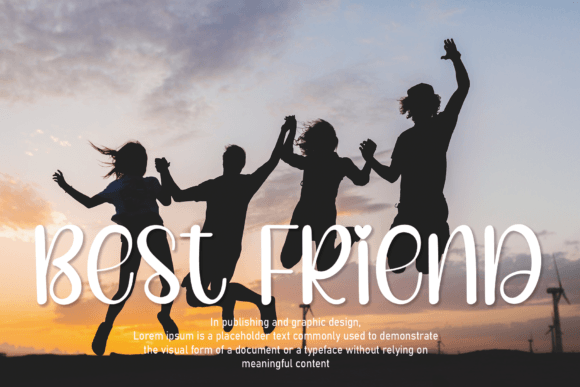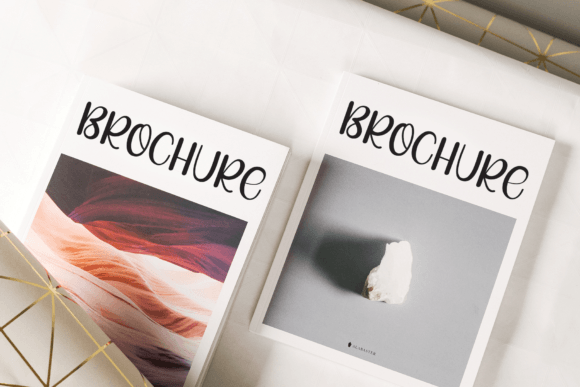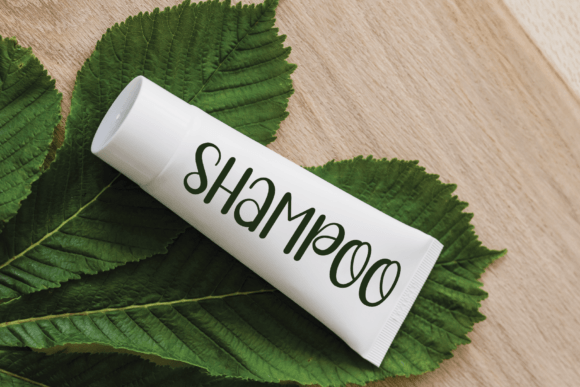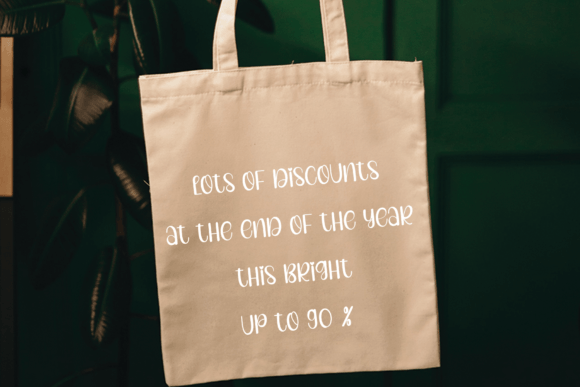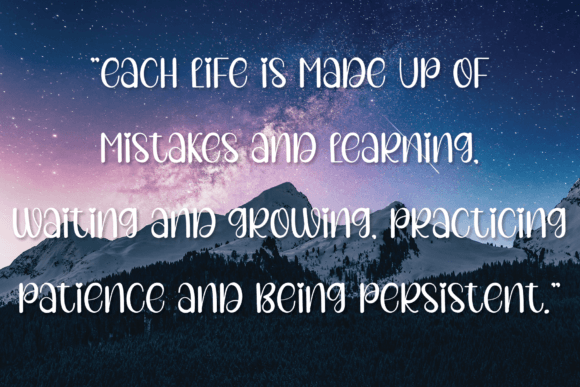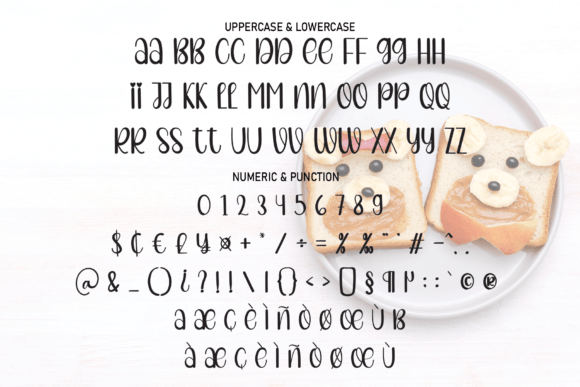
Introduction to Snacks for Children Font
Snacks for Children is a fun and friendly handwritten font.
Add it to your crafty ideas and you will love the results .
Key Features of Snacks for Children Font
Why Choose Snacks for Children Font?